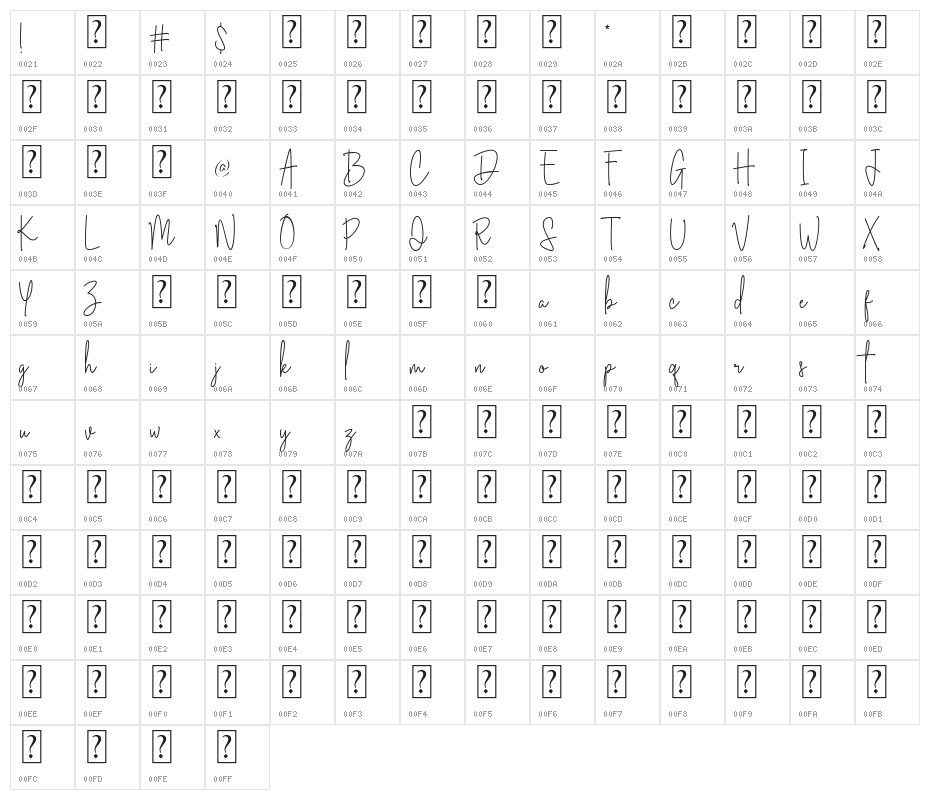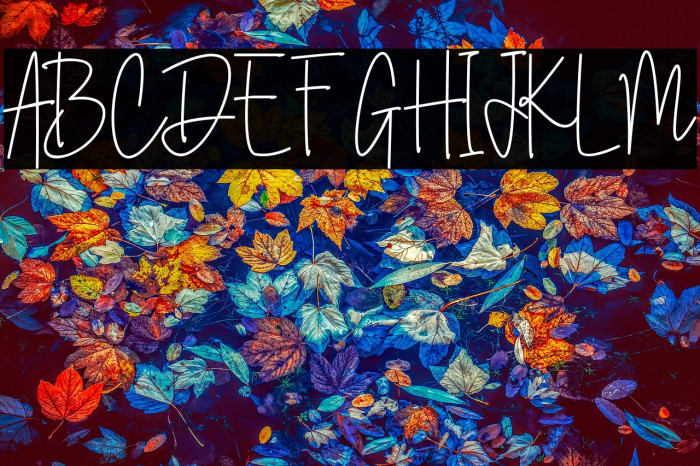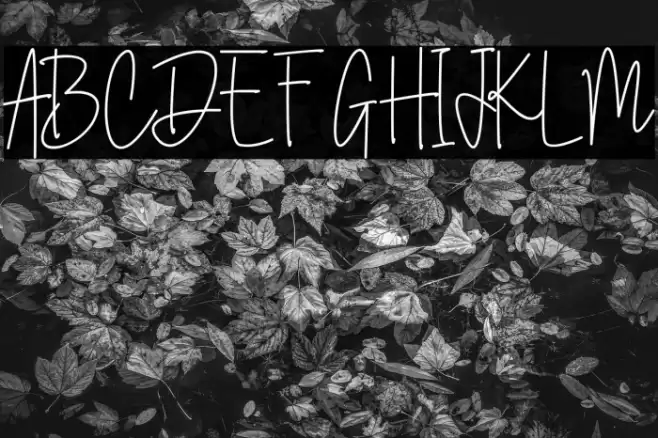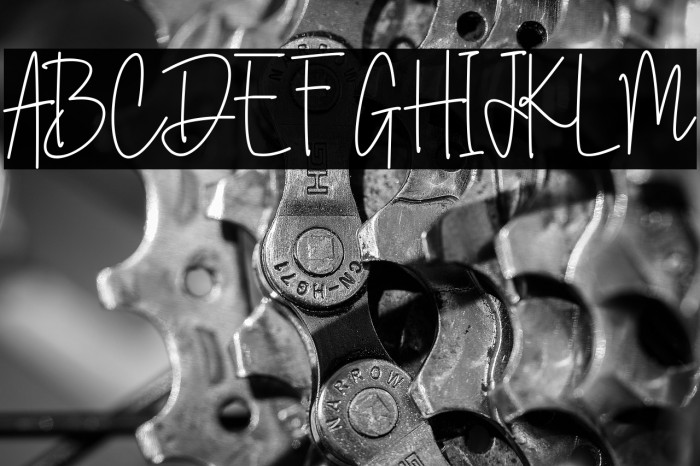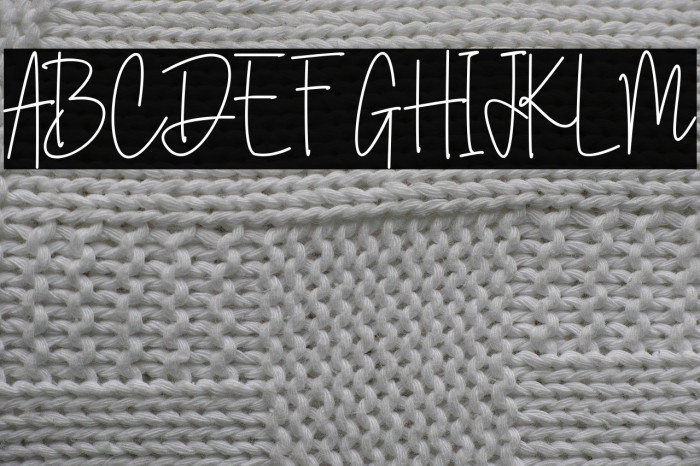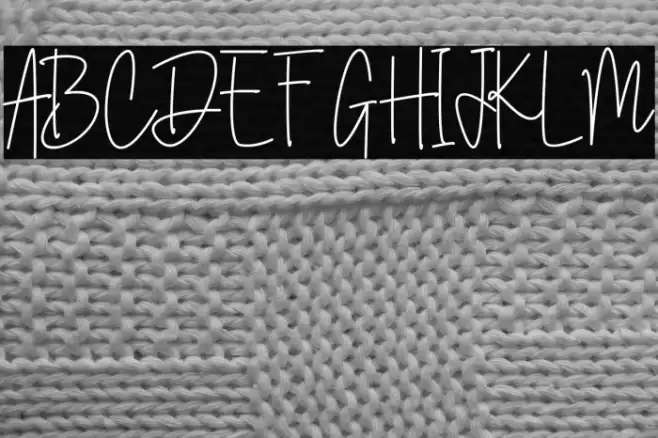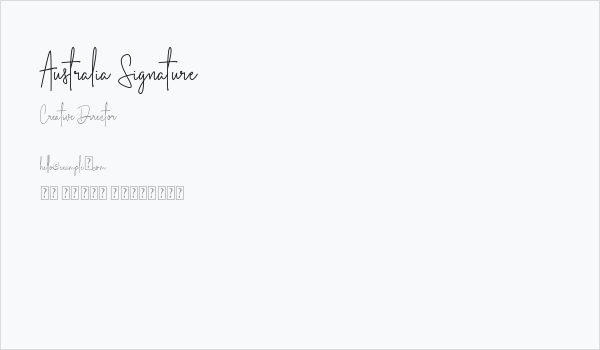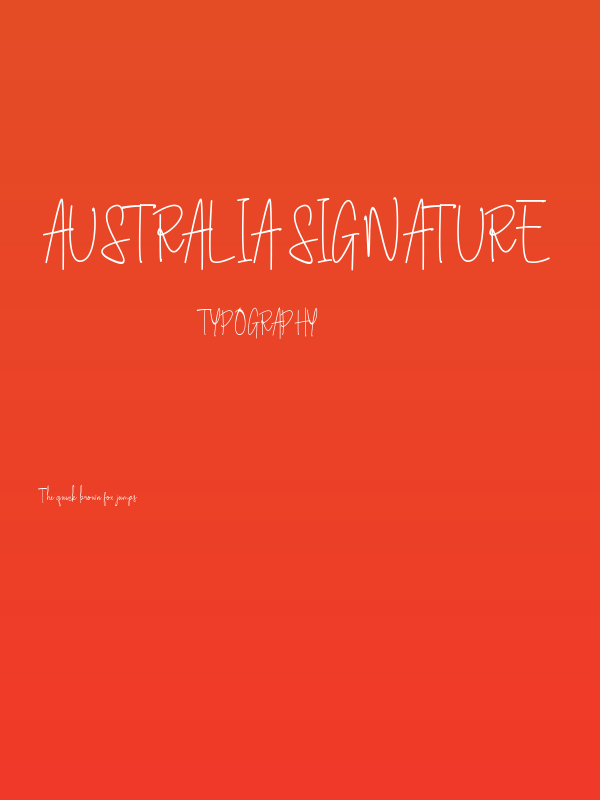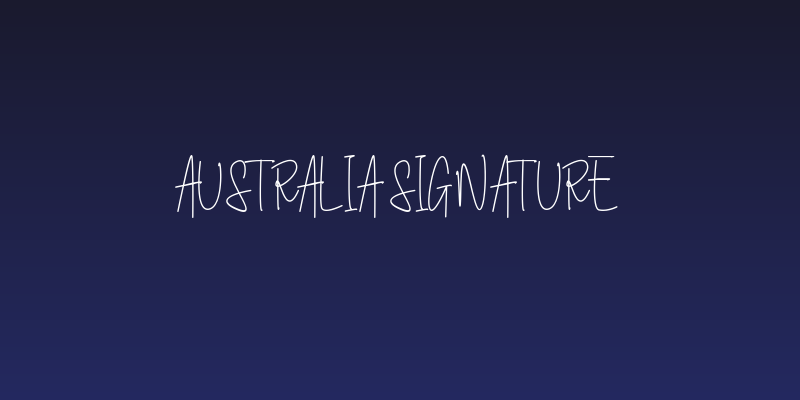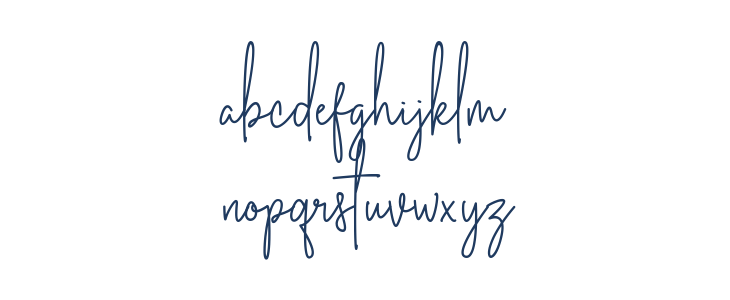
Australia Signature Font
Australia Signature Description
This font features a handwritten, cursive style that exudes elegance and fluidity. The uppercase letters are tall and narrow, with a slight slant, giving them a sophisticated appearance. The lowercase letters are more flowing and connected, enhancing the script-like quality. The strokes are thin and consistent, providing a delicate and airy feel. This font is ideal for projects that require a personal touch, such as invitations, greeting cards, or branding materials. The overall design is modern yet timeless, making it versatile for various applications.